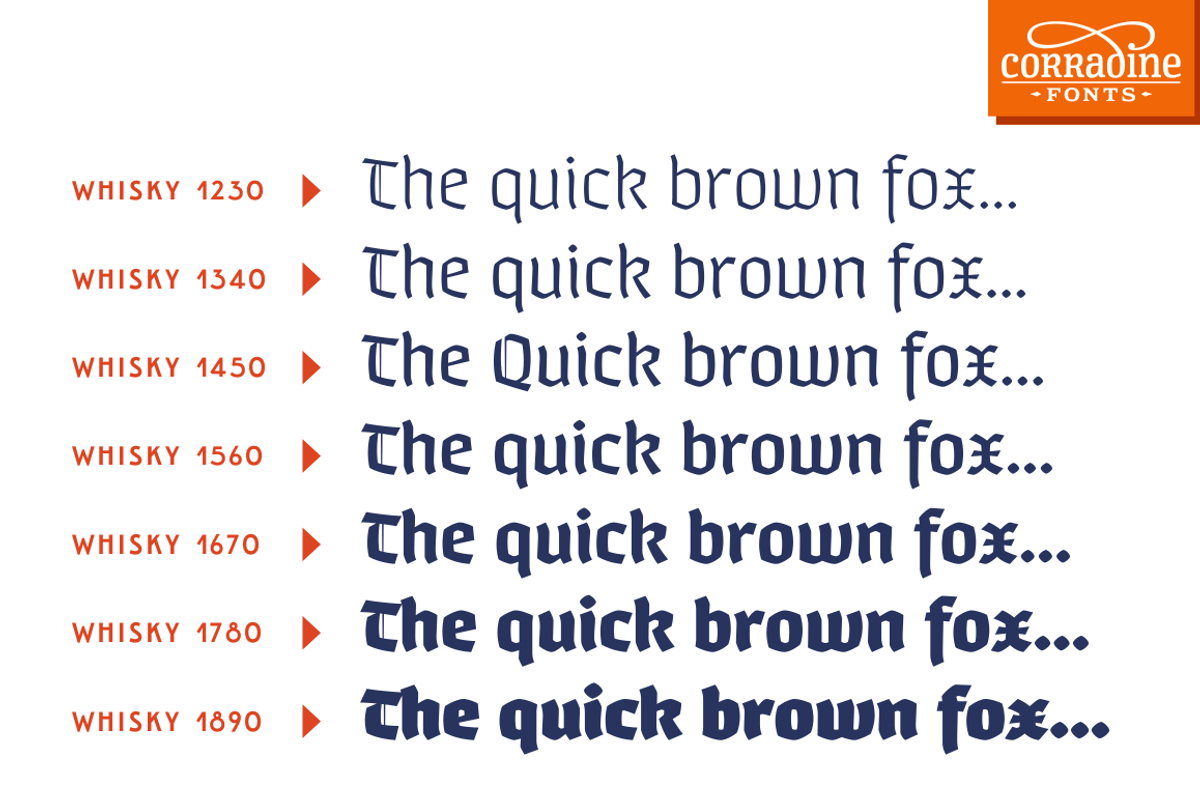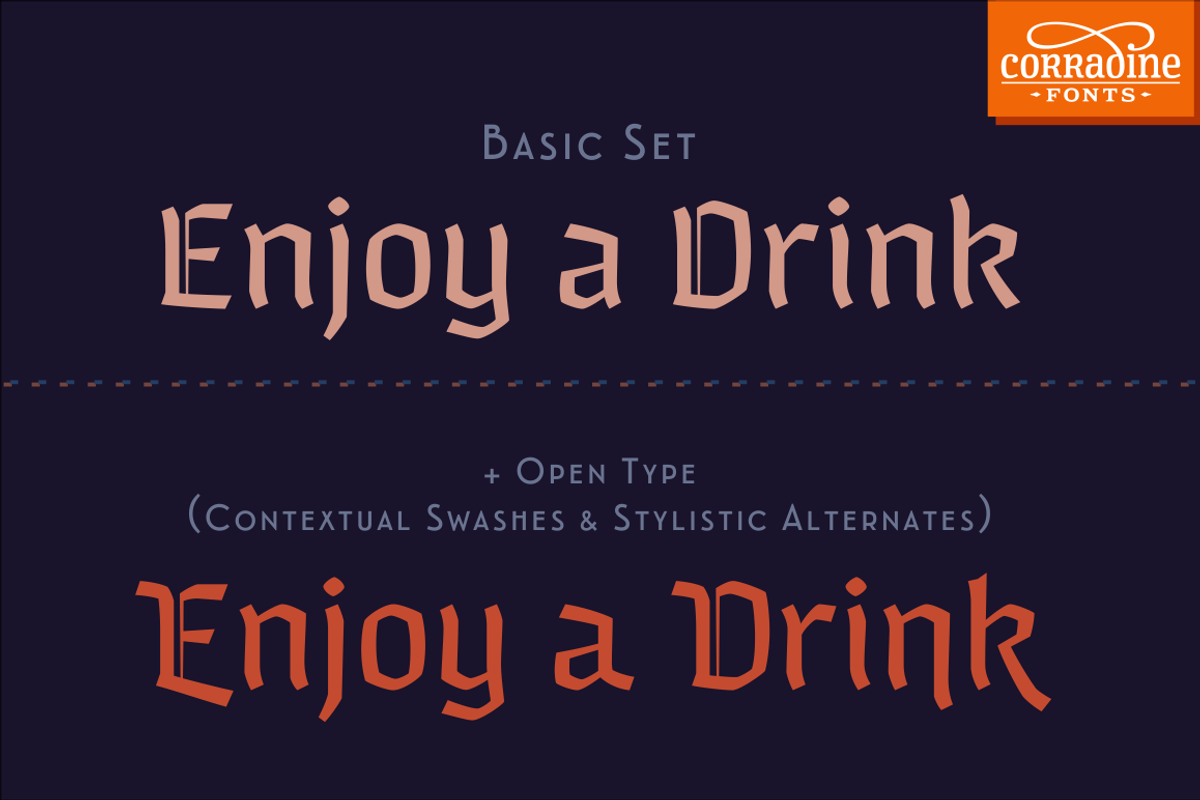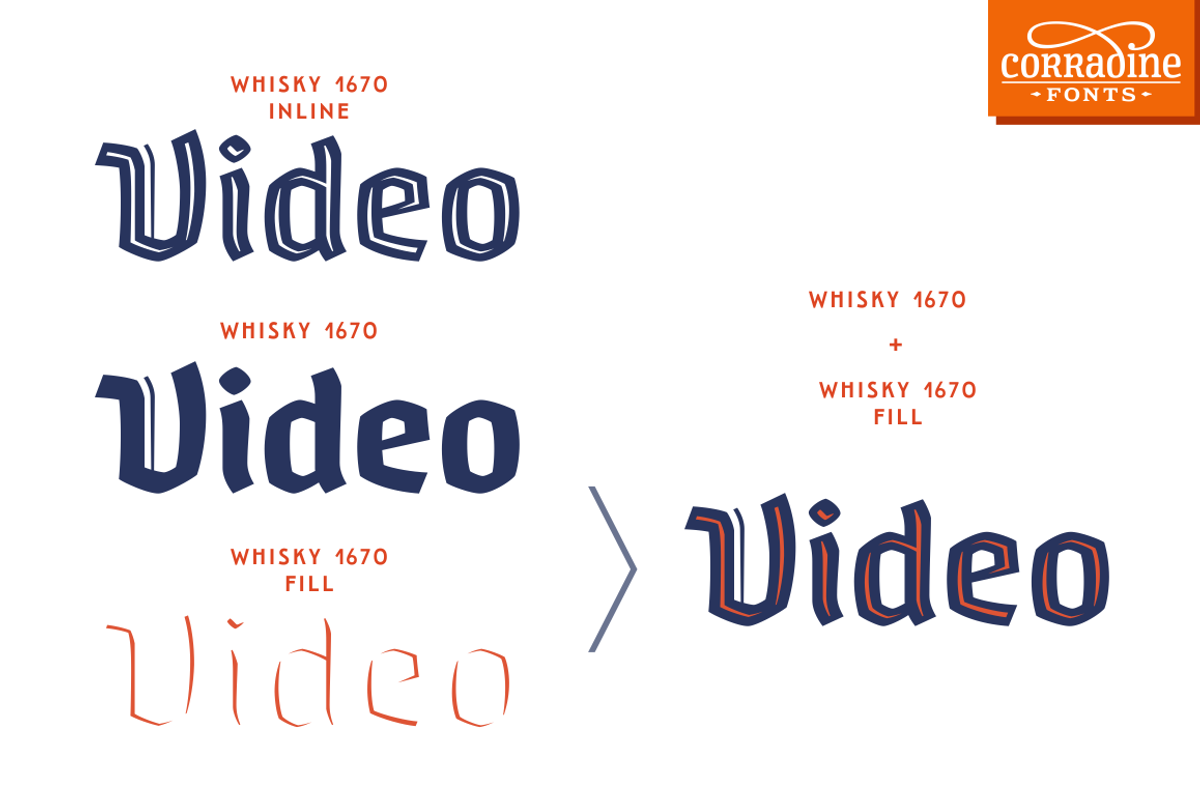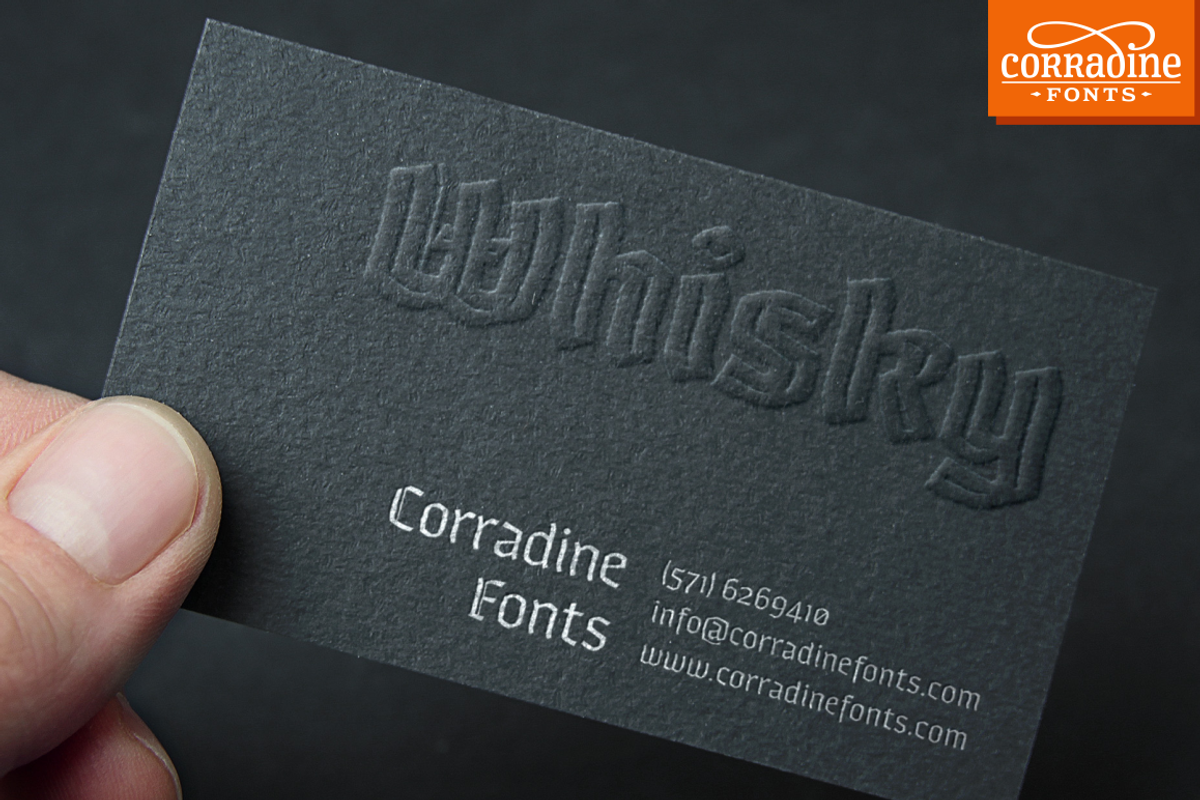
Whisky - A modern blackletter font
Whisky - A modern blackletter font by Corradine Fonts is a font selected for branding, posters, packaging, typography.
- The family includes seven weights, each with a fill and a inline version that allow you to develope more colorful applications overlaping th
- Also by using Open Type features you can access to an extended set of characters wich contains swashes and alternative endings to make more
Why Whisky - A modern blackletter font is worth a look
Whisky - A modern blackletter font by Corradine Fonts fits naturally into Branding, posters, packaging, typography.